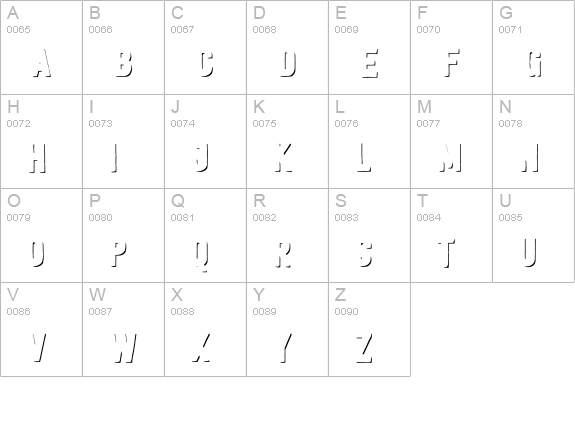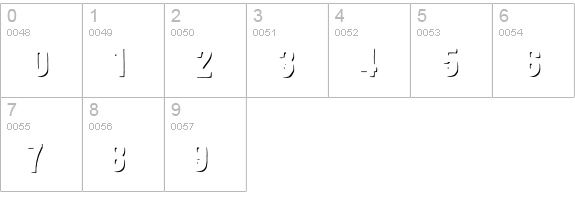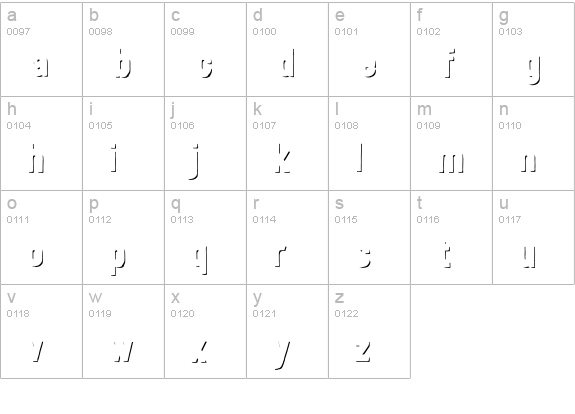
Introducing Festivo LC R Shadows font, a charming and elegant typeface that will add a touch of sophistication to your designs. This unique font features intricate shadow details that create a stunning visual impact. Festivo LC R Shadows is perfect for luxury branding, wedding invitations, and other projects where a touch of glamour is needed. The best part about Festivo LC R Shadows font is that it is completely free for personal and commercial use. You can download this exquisite font at FontsMarket.com and elevate your designs with its timeless beauty. Don't miss out on the opportunity to add Festivo LC R Shadows to your font collection today!